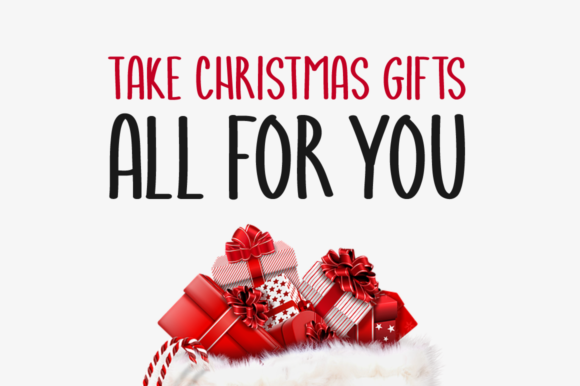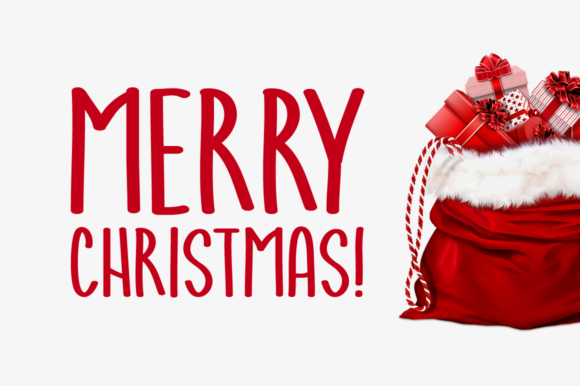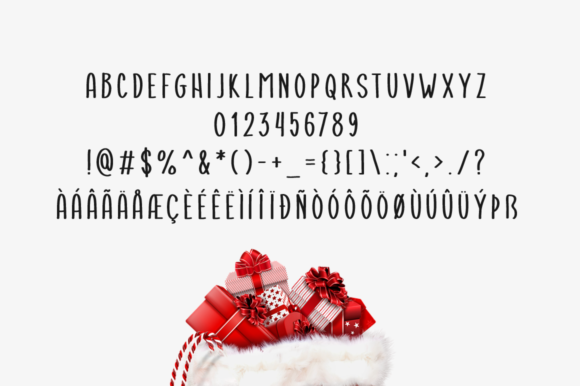
Christmas Gifts Font
About Christmas Gifts Font
Christmas Gifts is a new handwritten typeface perfectly suited for the holiday season. Fall in love with its festive look & feel!